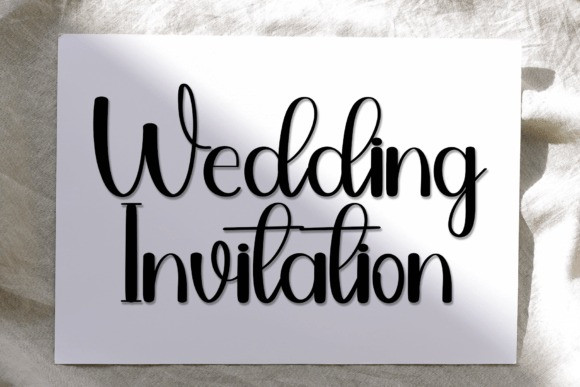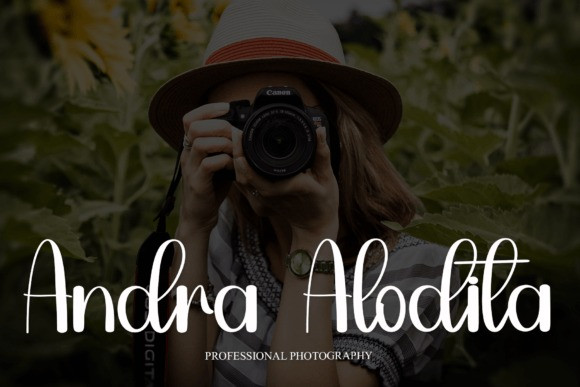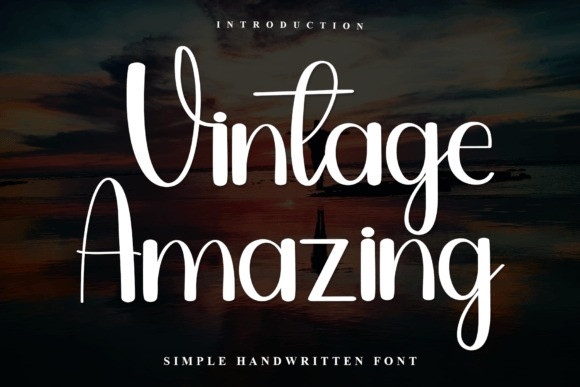
Vintage Amazing Script Font
Vintage Amazing Script Font is a charming handwritten font imbued with a sense of freshness and casual elegance. Its fluid strokes and organic lines evoke a laid-back vibe, making it perfect for various design projects. Whether used for branding, invitations, or social media graphics, Vintage Amazing adds a touch of warmth and personality.